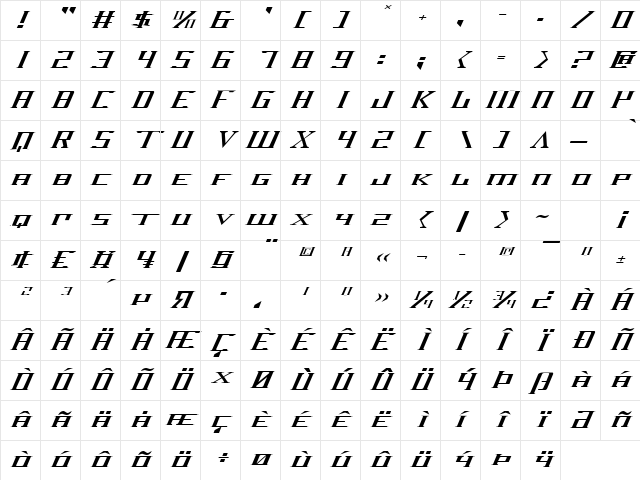
DarkWind Expanded Italic Expanded Italic
Style: Expanded Italic
Designer: Daniel Zadorozny
Design Context for DarkWind Expanded Italic
DarkWind Expanded Italic is a composed and adaptable typeface that performs quietly and consistently across a wide range of design contexts. The slanted form adds forward momentum and visual energy.